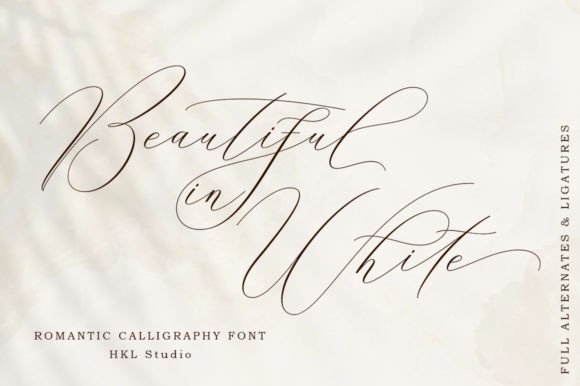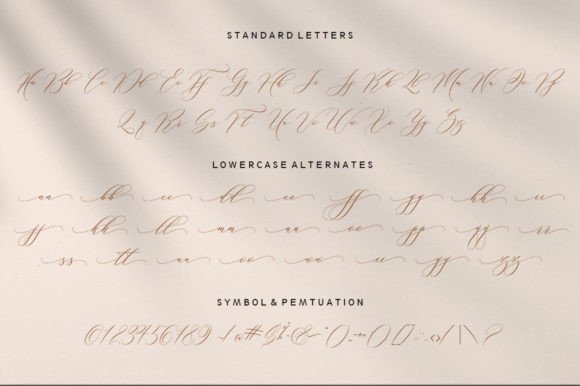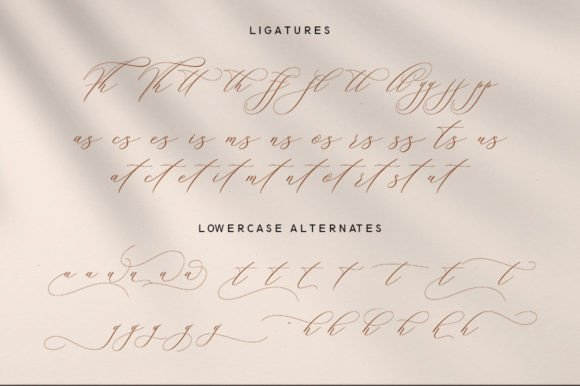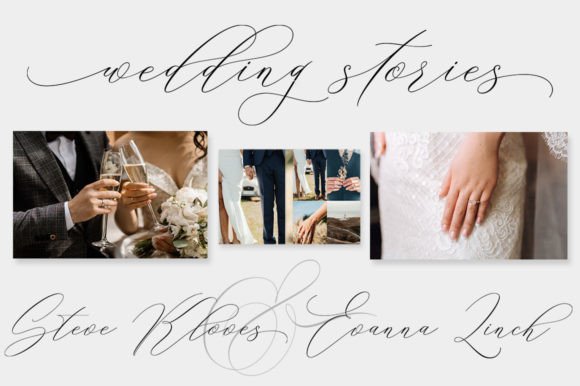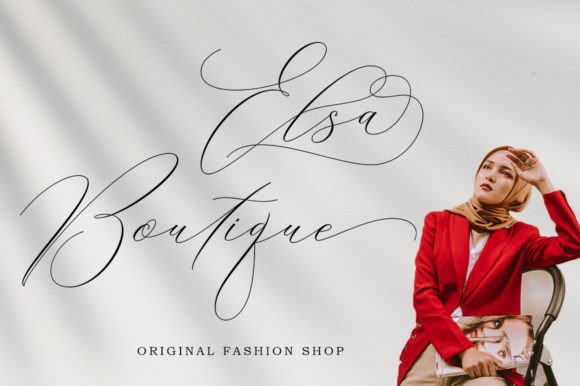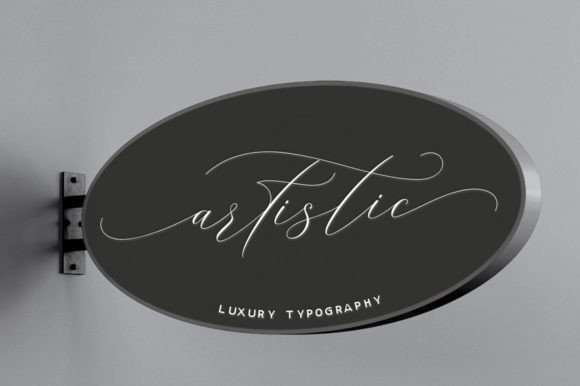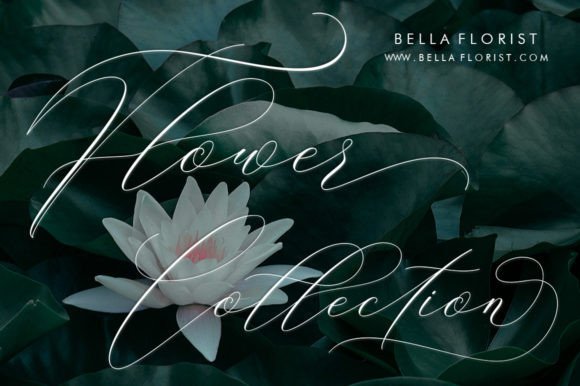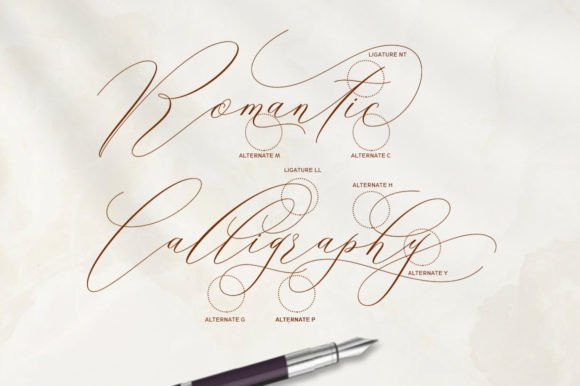
About Beautiful in White Font
The Beautiful in White Font Download is a sleek and elegant modern script typeface designed to add sophistication to your projects. With its smooth italic strokes and refined character design, this font radiates a timeless handwritten charm while maintaining a contemporary edge. Each curve has been crafted carefully, giving the typeface a polished finish that works beautifully in both formal and creative settings.
This script font is ideal for designers who need a versatile typeface that balances style with readability. Whether you’re preparing logos, branding projects, or invitations, Beautiful in White adapts seamlessly to a variety of design needs. Its luxurious flow ensures your text always looks refined and visually captivating.
Features of Beautiful in White Font
Modern handwritten script style with sleek italic design
Uppercase and lowercase letters for complete typography flexibility
OpenType features with ligatures and stylistic alternates for professional customization
These features make it easy to create custom typography that feels both personal and professional.
Best Uses for Beautiful in White Font
The Beautiful in White Font Download works exceptionally well in a wide variety of projects, such as:
Logos and branding – Stylish marks for luxury, fashion, or lifestyle businesses
Wedding invitations – Elegant script perfect for special occasions
Product packaging – Add charm to cosmetics, food, and boutique products
Business cards and stationery – A professional yet graceful look
Posters and quotes – Create eye-catching typography for decor or marketing
Clothing and merchandise – Great for t-shirts, mugs, and accessories
Book covers – A modern script that makes titles stand out
Social media graphics – Elegant posts designed to capture attention instantly
Why Choose Beautiful in White Font
Unlike standard script typefaces, the Beautiful in White Font Download offers both style and flexibility. Its elegant handwritten flow creates a luxurious impression, while its extensive OpenType features ensure maximum customization. Designers love it for its versatility—it’s refined enough for weddings and branding yet modern enough for social media and merchandise.
Because it includes multilingual support, ligatures, and stylistic alternates, Beautiful in White gives you the freedom to craft text that looks unique and polished. This makes it a dependable tool for professional designers and hobbyists alike.
The Beautiful in White Font Download is a modern and elegant script typeface that blends sleek style with timeless beauty. With its flowing italic strokes, OpenType features, and versatile applications, this font is perfect for logos, invitations, packaging, apparel, and more.